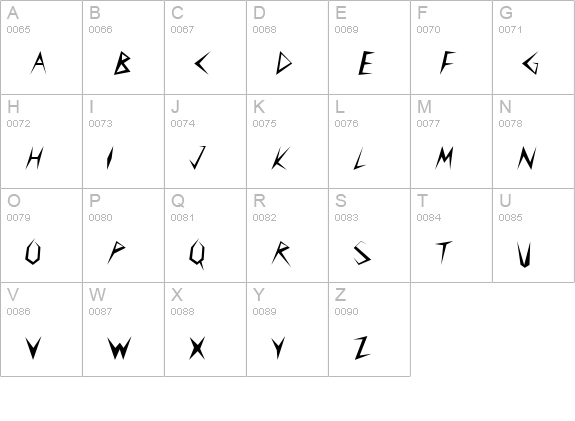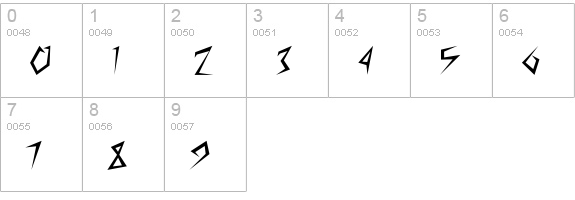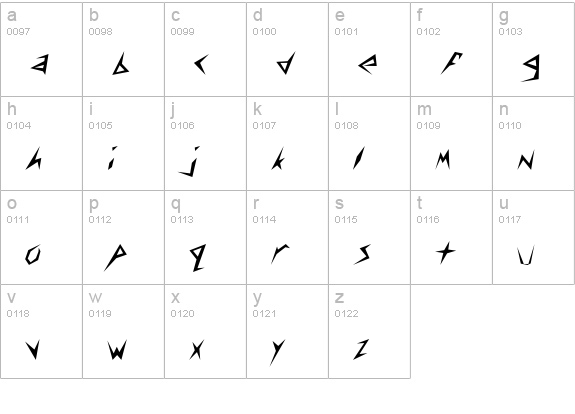
Slasher Normal is the standard, neutral variant in the Slasher typeface family \xE2\x80\x94 well suited to general body text, paragraphs, and standard typographic work.
Slasher Normal font is a striking display typeface that is sure to add a touch of boldness to any design project. With its sharp edges and dramatic strokes, this font is perfect for creating eye-catching headlines, logos, and posters. The Slasher Normal font features a unique combination of bold letterforms and slanted angles, giving it a distinctive and edgy look. Its versatility allows it to be used in various design styles, from modern and minimalistic to grungy and urban. What makes Slasher Normal font even more appealing is that it is completely free! Yes, you read that right. You can freely download this font at FontsMarket.com, the go-to destination for high-quality fonts. Whether you're a professional designer or simply looking to add a little extra flair to your personal projects, Slasher Normal font is the perfect choice. So why wait? Download this font now and unleash your creativity with its powerful and captivating aesthetic.